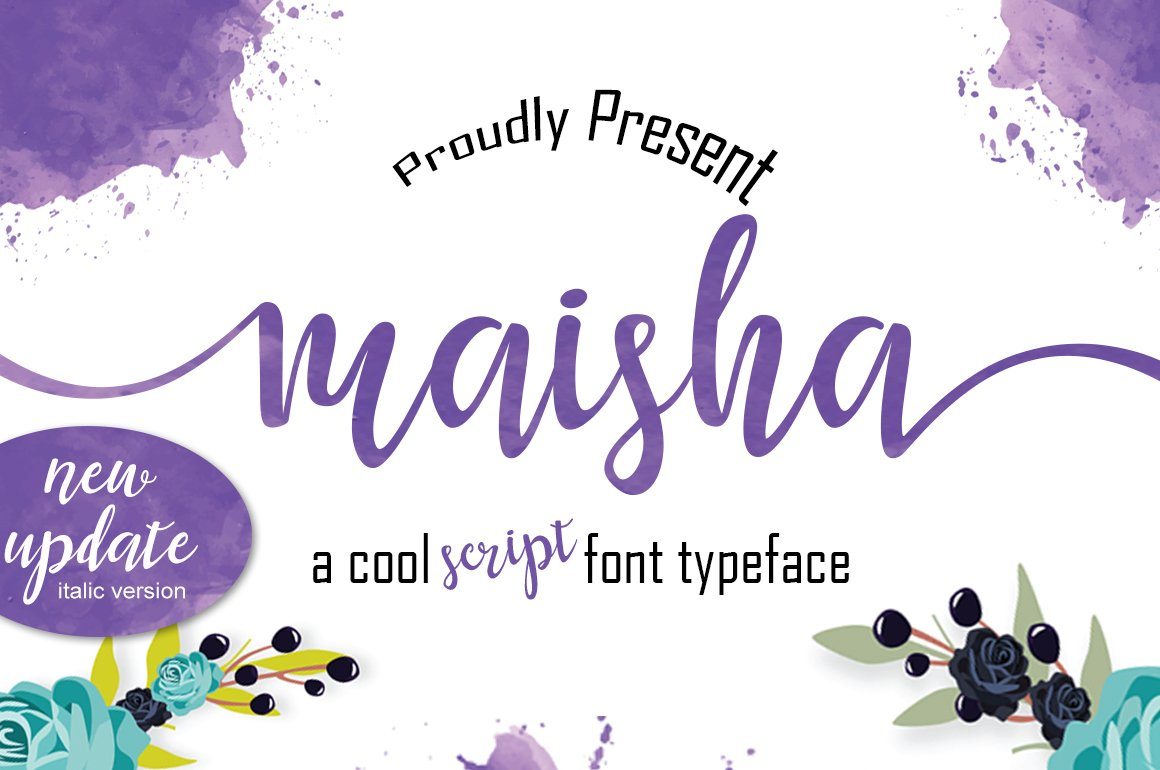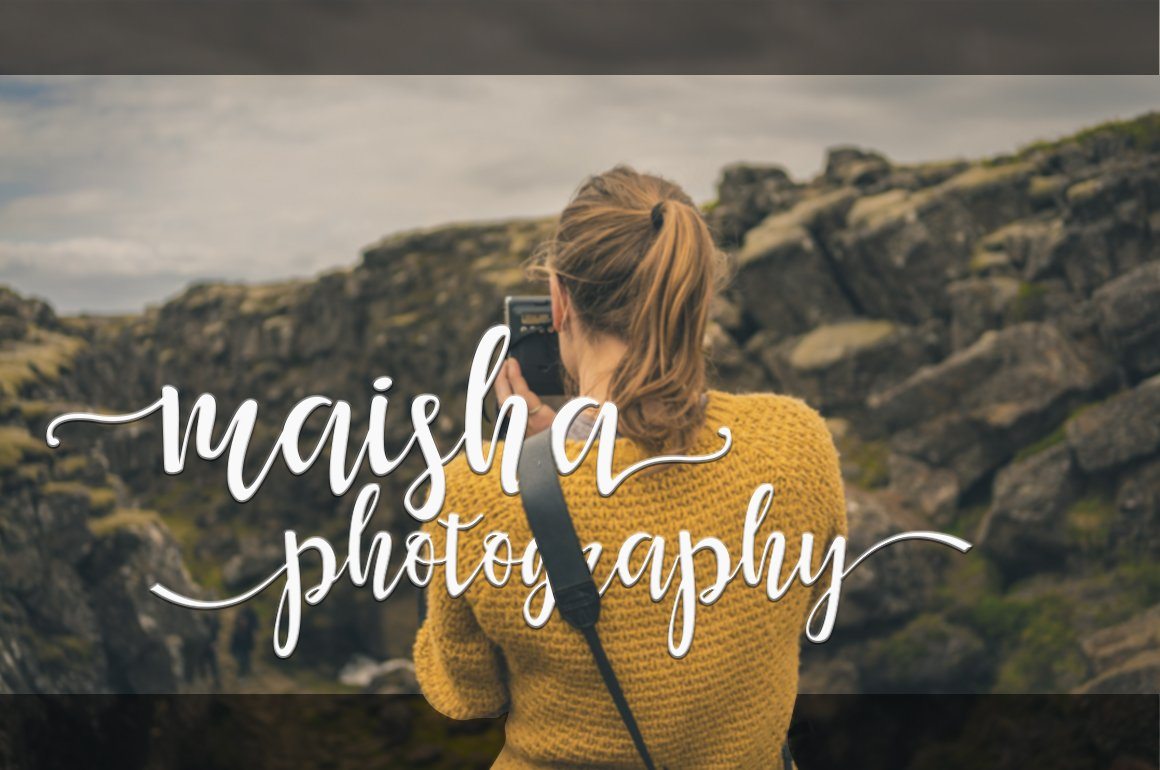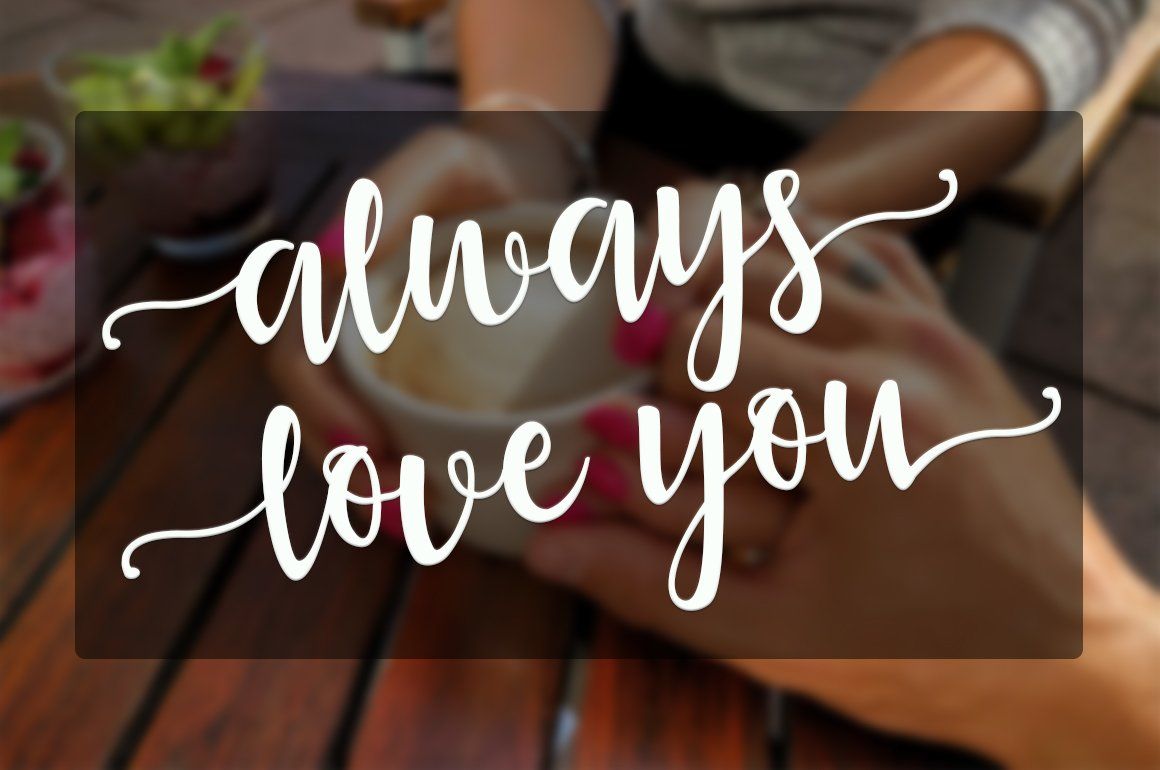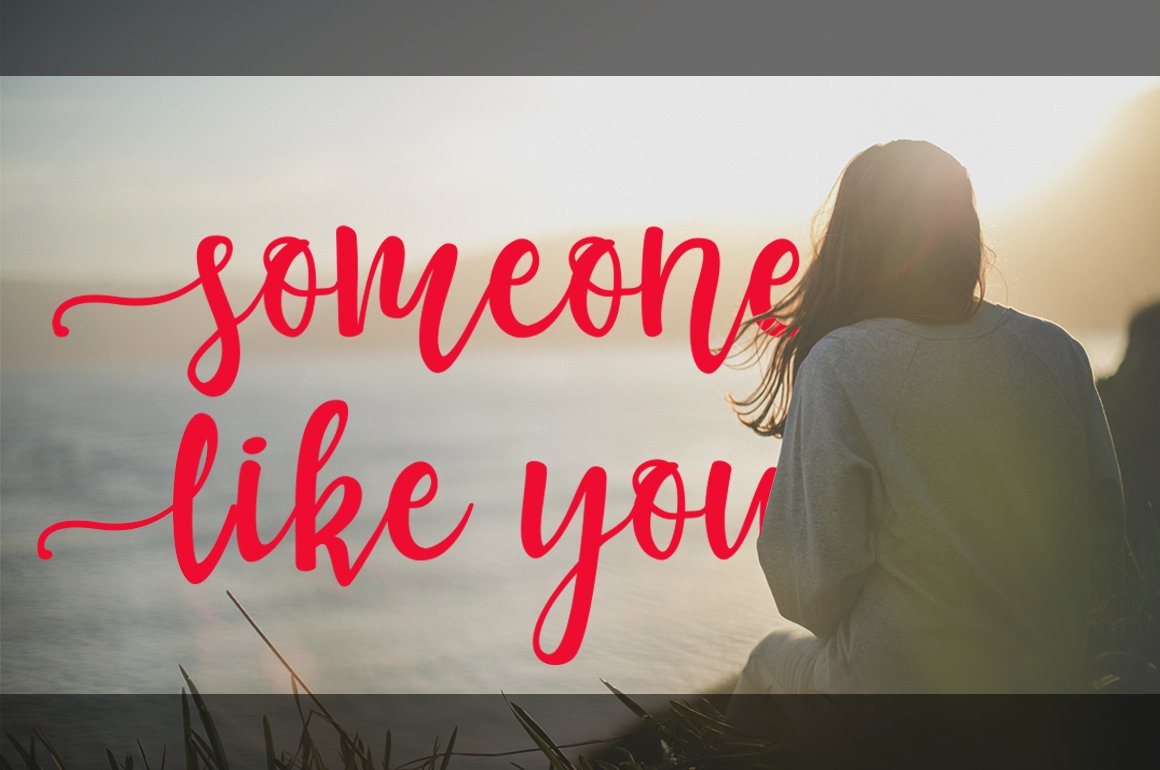
About Maisha Script Font
Introducing Maisha Script is a handwriting font that is modern and cool daat used in greeting cards, wedding invitations, business cards and also suitable for the purpose in the world of photography and more. Maisha Script comes with 339 glyphs alternate characters that can be accessed easily using programs such as Adobe Illustrator, Adobe InDesign, Adobe Photoshop Corel Draw version X, and Microsoft Word. Fonts have supported unicode PUA. so that all the alternative characters can be easily accessed in full by designers and other users. Maisha Script is included Maisha Script.OTF Maisha Scrip.TTF Maisha Scrip italic .TTF Maisha Scrip italic OTF If you don’t have a program that supports OpenType features such as Adobe Illustrator and CorelDraw X Versions, you can access all the alternate glyphs using Font Book (Mac) or Character Map (Windows). If you have some questions about Maisha Script please send an inquiry email to  , Thank you for a layover. Introducing Maisha Script is a handwriting font that is modern and cool daat used in greeting cards, wedding invitations, business cards and also suitable for the purpose in the world of photography and more. Maisha Script comes with 339 glyphs alternate characters that can be accessed easily using programs such as Adobe Illustrator, Adobe InDesign, Adobe Photoshop Corel Draw version X, and Microsoft Word. Fonts have supported unicode PUA. so that all the alternative characters can be easily accessed in full by designers and other users. Maisha Script is included Maisha Script.OTF Maisha Scrip.TTF Maisha Scrip italic .TTF Maisha Scrip italic OTF If you don’t have a program that supports OpenType features such as Adobe Illustrator and CorelDraw X Versions, you can access all the alternate glyphs using Font Book (Mac) or Character Map (Windows). If you have some questions about Maisha Script please send an inquiry email to  , Thank you for a layover.